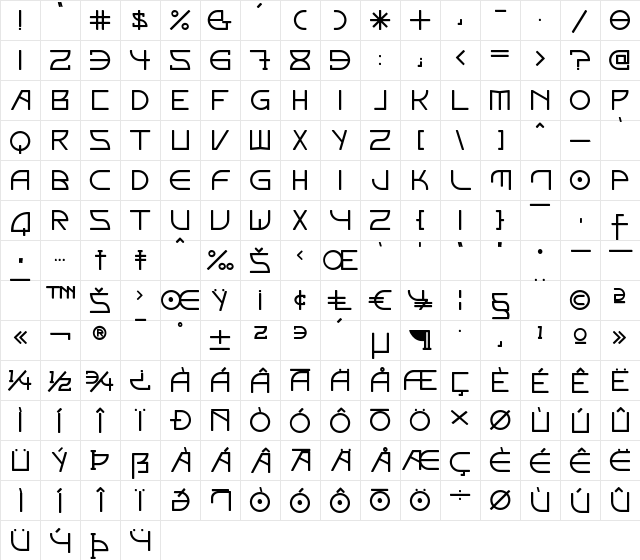
Elektora Regular
| Designer | Apostrophe (') and Alejandro Paul. |
Design Context for Elektora Typeface
Elektora takes a measured approach to typography — its balanced proportions and neutral character make it a reliable workhorse for both digital and print work.